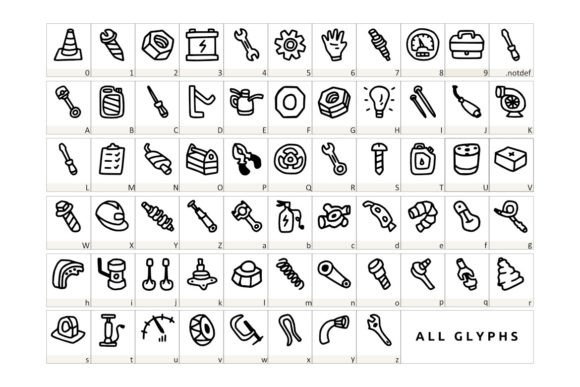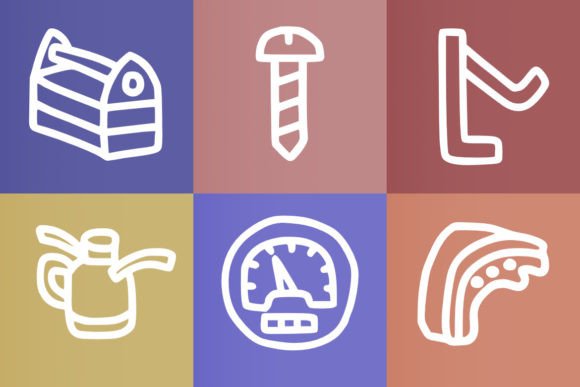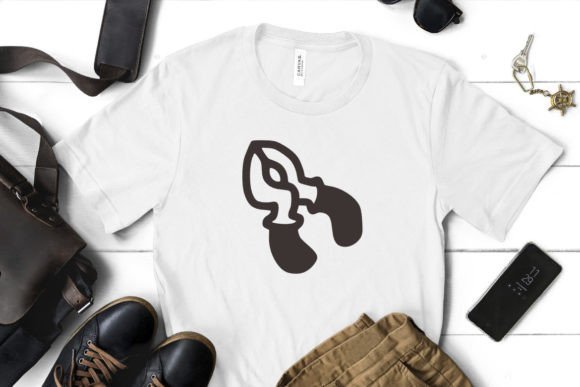
Introduction to Mechanic Tools Font
Mechanic Tools is a fun and useful dingbats font perfect for a wide variety of projects.
Use it for stickers, posters, t-shirts, cards, apparel graphics, etc ; you will love the results.